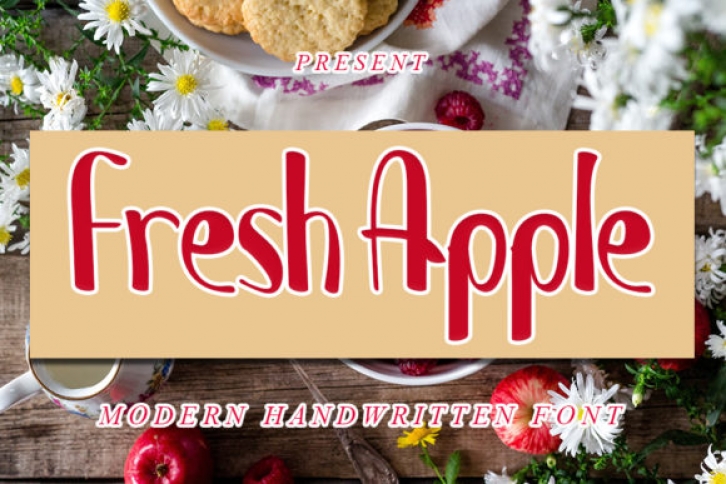
Fresh Apple is a cute and casual handwritten font. Its natural and unique style makes it incredibly fitting to a large pool of designs. The only limit is your imagination!